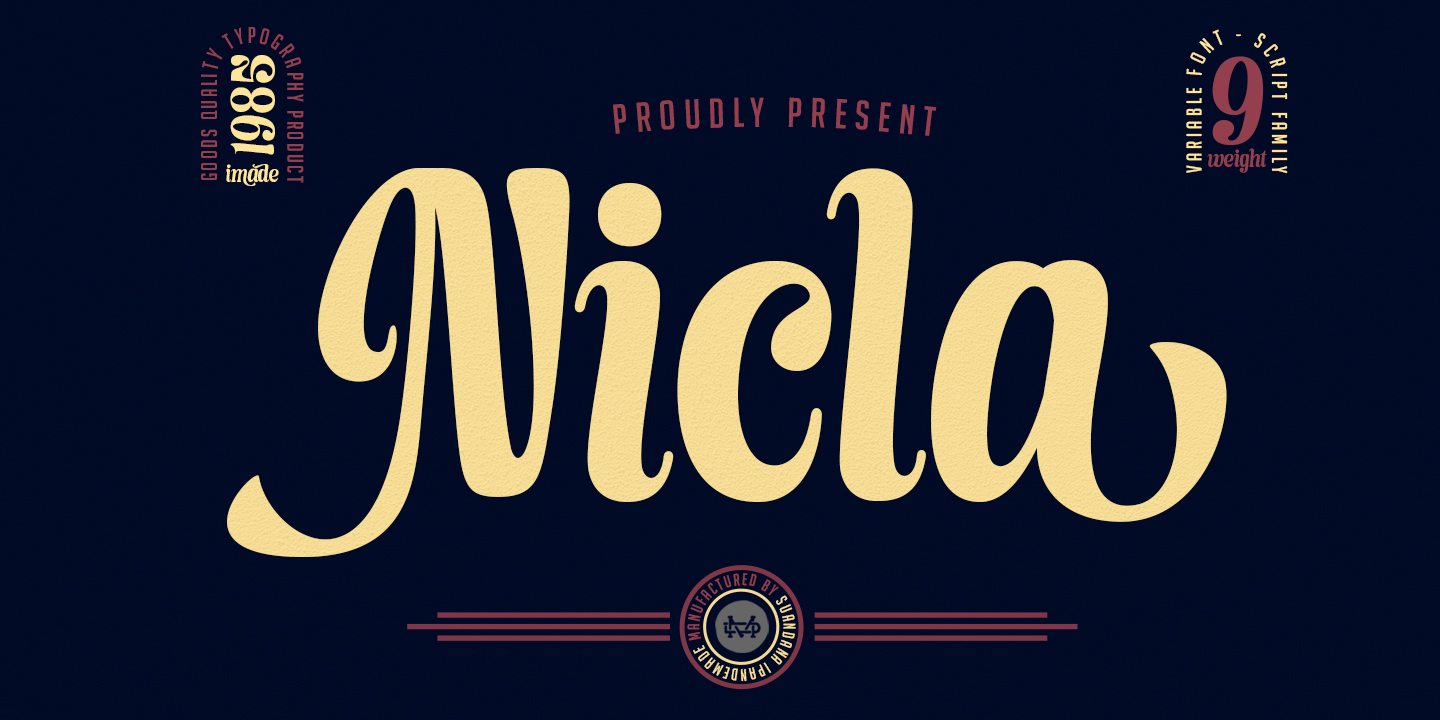
Nicla Font is ideal for modern fashion brands, contemporary jewelry designers, elegant beauty salons, sophisticated lifestyle magazines, minimalist architecture firms, refined personal branding, chic boutique marketing, upscale cosmetics packaging, contemporary art galleries, sleek tech startups, modern wellness centers, and sophisticated feminine brand communications.
This font is exciting because it embodies the effortless sophistication and contemporary elegance that defines modern feminine grace, featuring sleekly refined letterforms that flow with the same natural confidence and understated luxury found in the most exclusive designer boutiques where quality speaks louder than logos and true style emerges from thoughtful simplicity rather than flashy ostentation. The gracefully modern character design captures both the strength of contemporary women and the timeless appeal of classic elegance, creating typography that feels both completely current and enduringly beautiful. Each letter radiates the kind of confident sophistication and natural grace that transforms ordinary text into expressions of refined taste and contemporary femininity.
The Nicla Font family includes multiple weights from light to bold, with corresponding italic styles, and comprehensive character sets featuring elegant numerals, refined punctuation marks, and subtle design elements that enhance readability while maintaining the sophisticated, contemporary aesthetic. Advanced versions may offer additional stylistic variants with enhanced flowing effects, alternate characters that create natural elegant connections, and modern ornaments that celebrate contemporary feminine sophistication.
Whether you're developing contemporary fashion branding, creating sophisticated lifestyle content, or designing modern feminine marketing materials, Nicla Font Free Download provides the elegant sophistication and contemporary grace your project needs to appeal to discerning audiences who appreciate refined design and modern femininity. This typeface transforms ordinary text into sophisticated expressions that honor both contemporary style and timeless elegance. The font's refined character makes it perfect for brands targeting sophisticated women and luxury lifestyle markets. Contemporary designers and feminine brand strategists will appreciate how this font brings authentic modern elegance to their work with its genuinely sophisticated and gracefully contemporary character that defines today's refined feminine aesthetic.